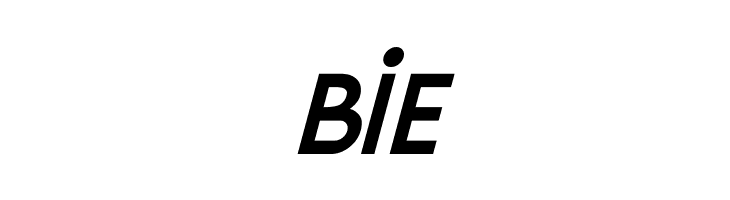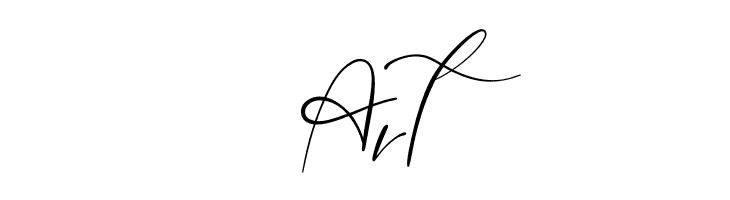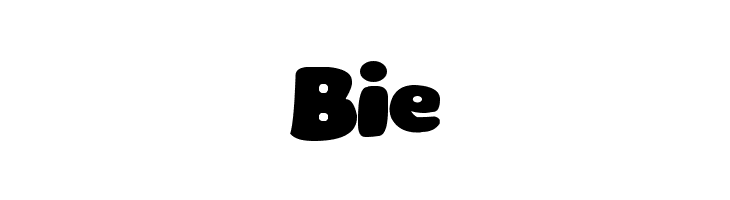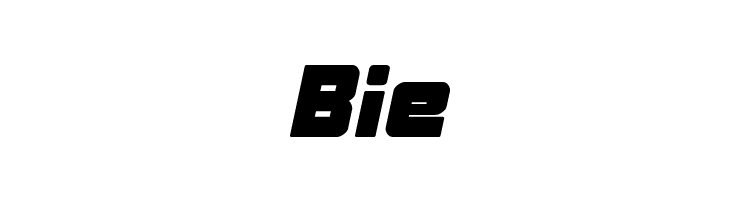
A bold, 3D-style font with outlined characters and a modern, playful look.
A bold, italicized font with a dynamic and energetic style.
A bold, geometric font with uniform thickness and a modern retro vibe.
A bold, decorative font with a dotted pattern, reminiscent of marquee lights.
A bold, decorative font with intricate patterns and a vintage flair.
A decorative and bold font with intricate patterns and high contrast.
A bold, 3D neon-style italic font with a dynamic and modern look.
A bold, 3D neon-style font with layered outlines and rounded edges.
A bold, italicized font with a neon outline effect, perfect for retro designs.
A bold, geometric font with a neon-like outline, perfect for retro and modern designs.
A bold, decorative font with a dotted pattern for a playful, high-contrast look.
A playful, hand-drawn font with a whimsical and friendly vibe.
A casual, handwritten font with uneven, dynamic strokes.
A playful, hand-drawn font with elongated, narrow characters and a whimsical style.
A playful, handwritten-style font with rounded, slightly irregular characters.
A bold, playful font with a hand-drawn, textured appearance, ideal for children's themes.
A bold, playful script font with a handwritten feel, perfect for lively projects.
A playful, hand-drawn font with bold outlines and quirky shapes.
A modern, rounded font with a clean and friendly appearance.
A bold, playful font with a modern and slightly condensed style.
A bold, flowing script font with a handwritten appearance.
A playful, hand-drawn font with a whimsical and friendly style.
A bold, geometric font with an architectural and futuristic style.
A bold, dynamic font inspired by traditional Asian calligraphy with sharp, angular strokes.
A bold, brushstroke font with a dynamic, calligraphic style.
A decorative font featuring artistic representations of the Chinese zodiac animals.
A sleek, modern font with elongated, narrow characters and clean lines.
A bold, geometric font with a futuristic, industrial style.
A playful, hand-drawn font with bold, rounded characters.
A modern, extra bold sans-serif typeface with a strong and assertive presence.
A bold and italicized typeface with a modern and dynamic style.